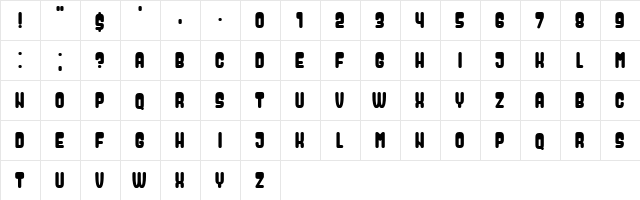
Dressed Book Regular
Design Context for Dressed Book Typeface
Dressed Book is a composed and adaptable typeface that performs quietly and consistently across a wide range of design contexts.